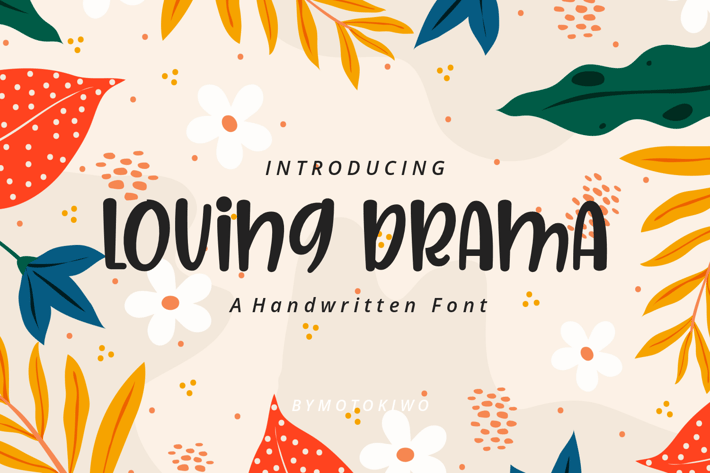
Loving Drama - Playful Font
Loving Drama is a playful, sweet, and quirky font that will work perfectly for kids projects or any business that wants to appear fun and playful.
- Mix Uppercase & Lowercase
- Numerals & Punctuations
- Multilingual characters (AÀÁÂÃÄÅÇEÈÉÊËIÌÍÎÏNÑOØÒÓÔÕÖUÙÜÚÛÝŸÆŒß)